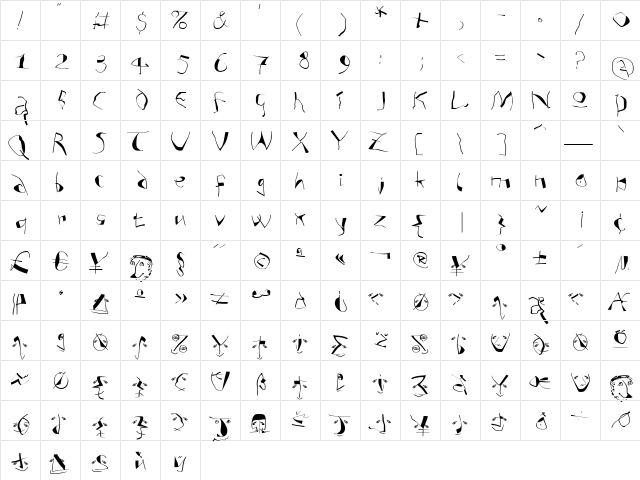
AnAlphaBetIsmXtreme Regular
Design Context for AnAlphaBetIsmXtreme Typeface
AnAlphaBetIsmXtreme is a composed and adaptable typeface that performs quietly and consistently across a wide range of design contexts.